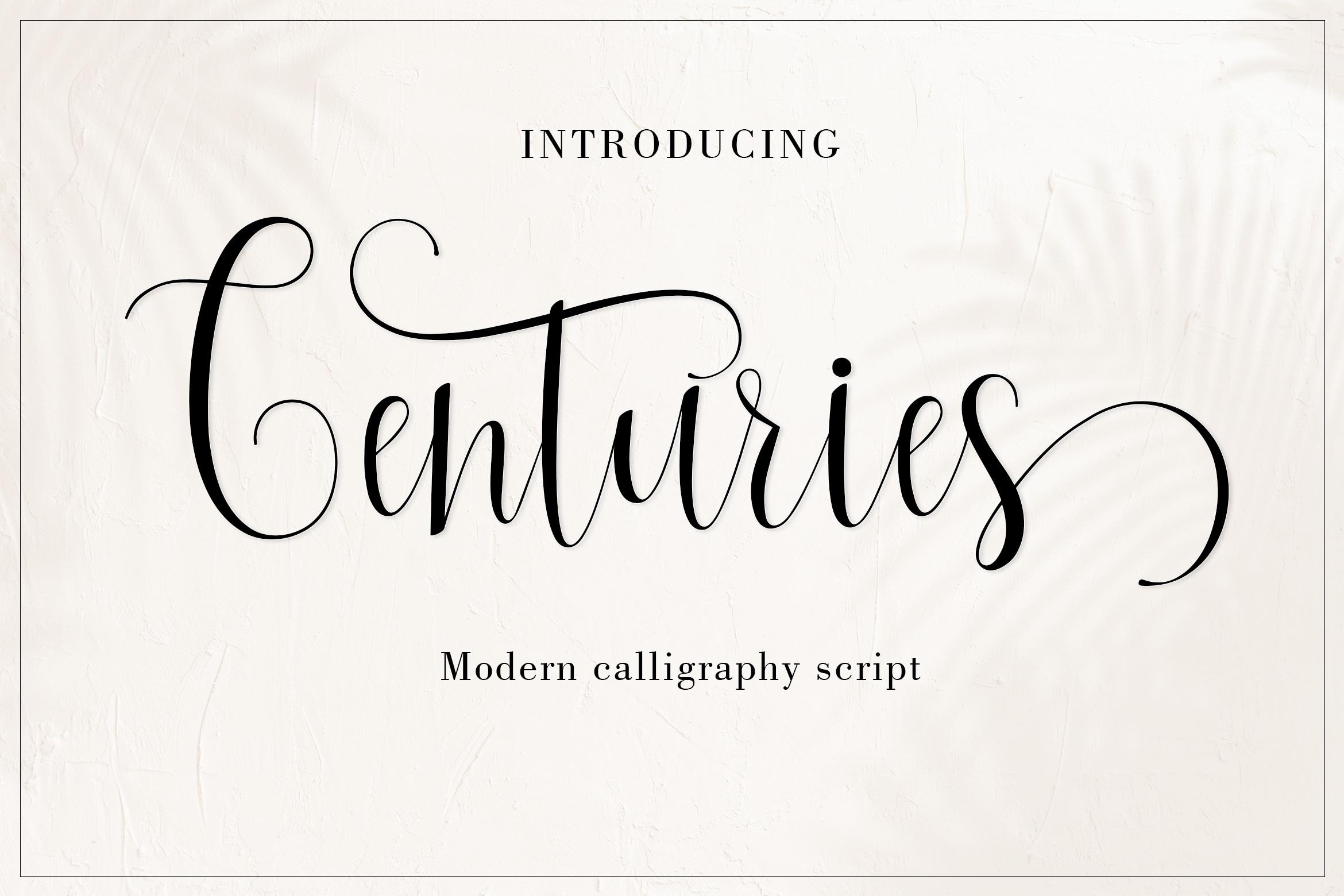
Centuries Font Description
Centuries is a romantic and sweet calligraphy typeface with characters that dance along the baseline. It can be used for various purposes such as logos, wedding invitations, headings, and so much more. This font is PUA encoded which means you can access all of the glyphs and swashes with ease!